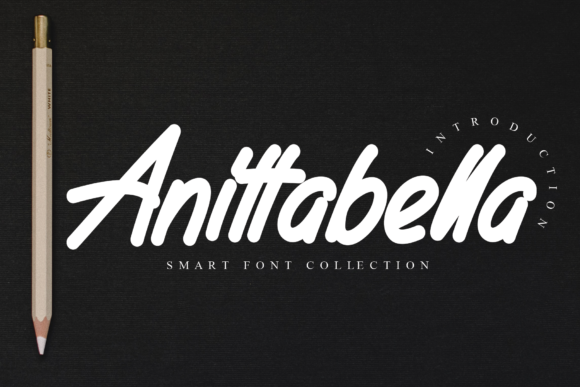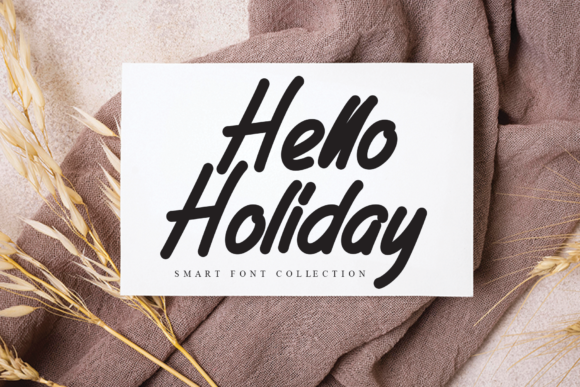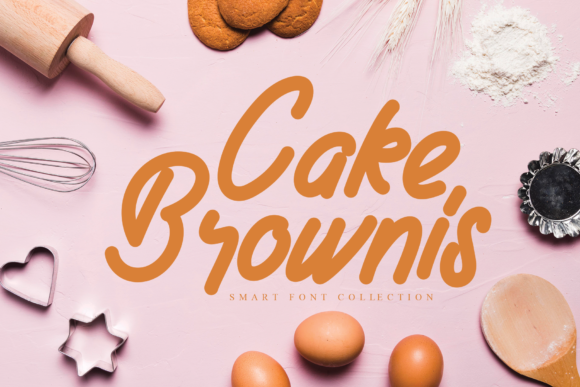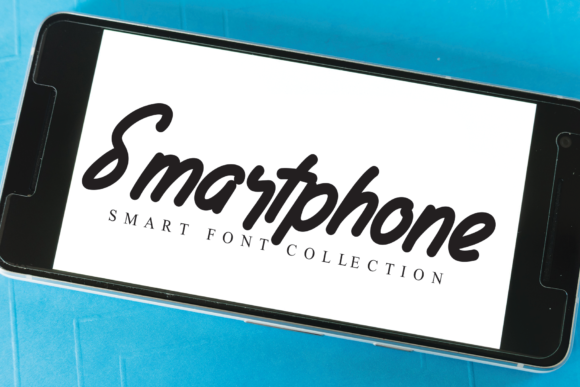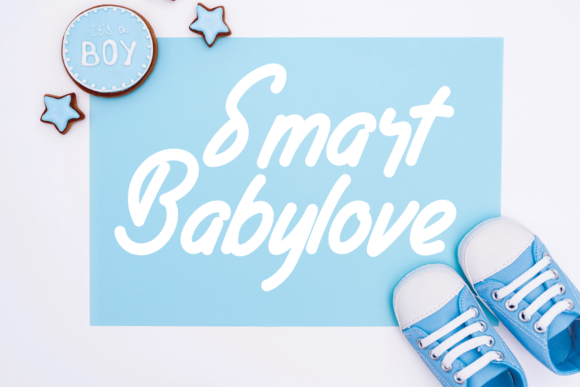
Anittabella Font
About Anittabella Font
Anittabella is an elegant brushed script font with a contemporary atmosphere and impeccable form, inspired by timeless classic calligraphy. Not too thin and not too thick, balanced and varied, this font was designed to enhance the beauty of your projects.